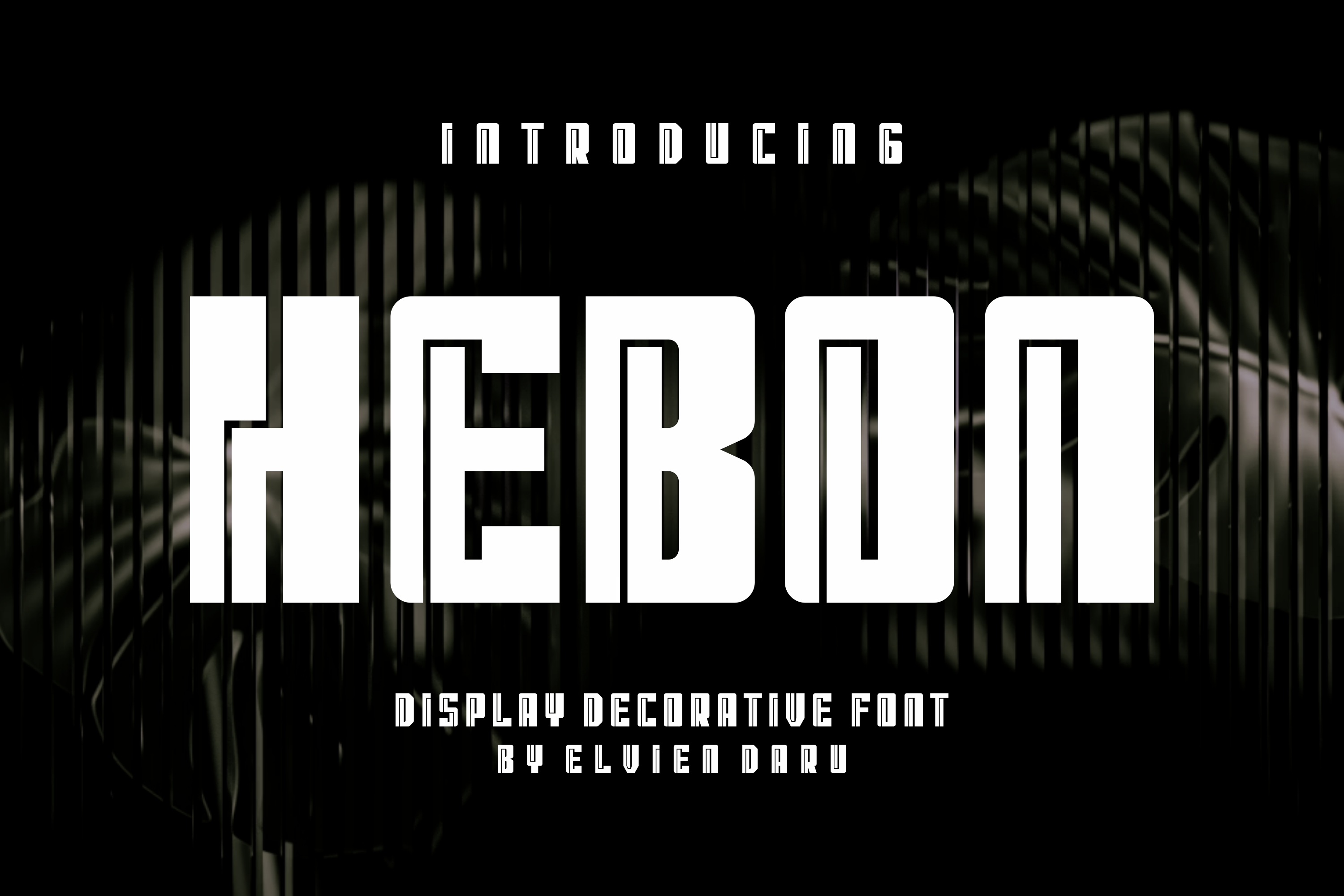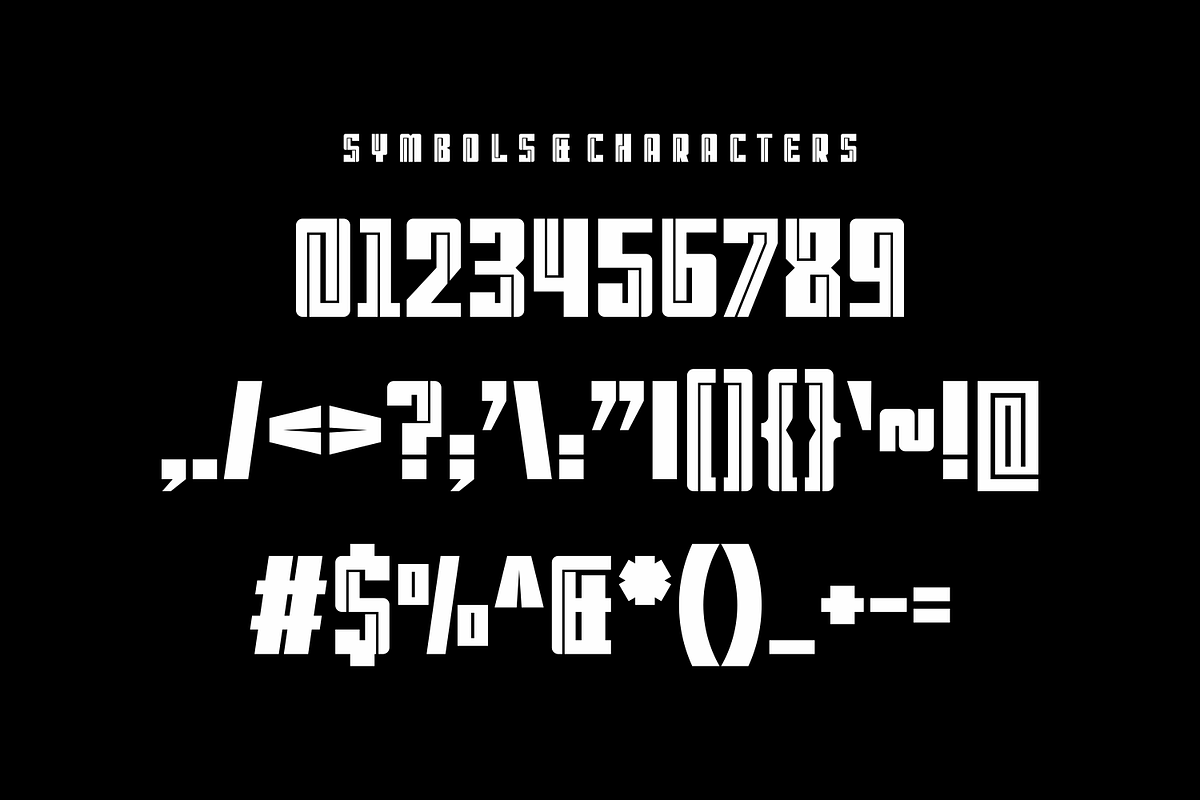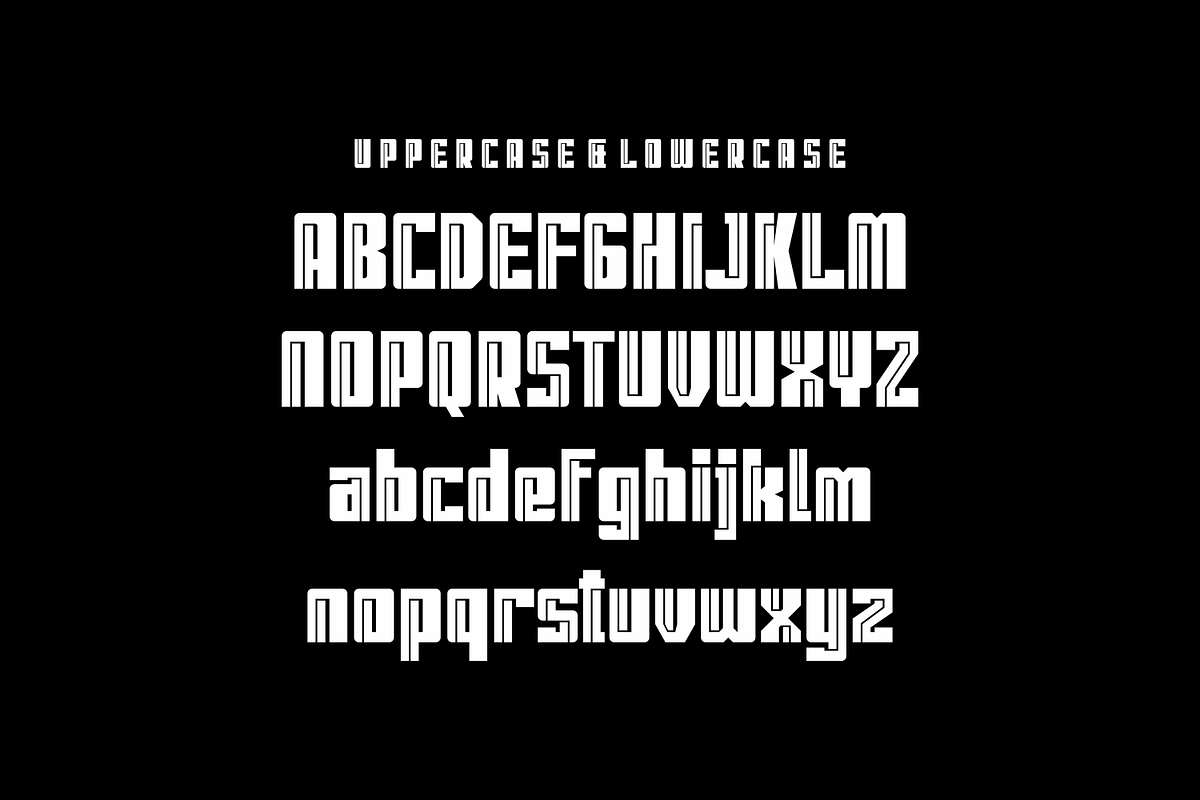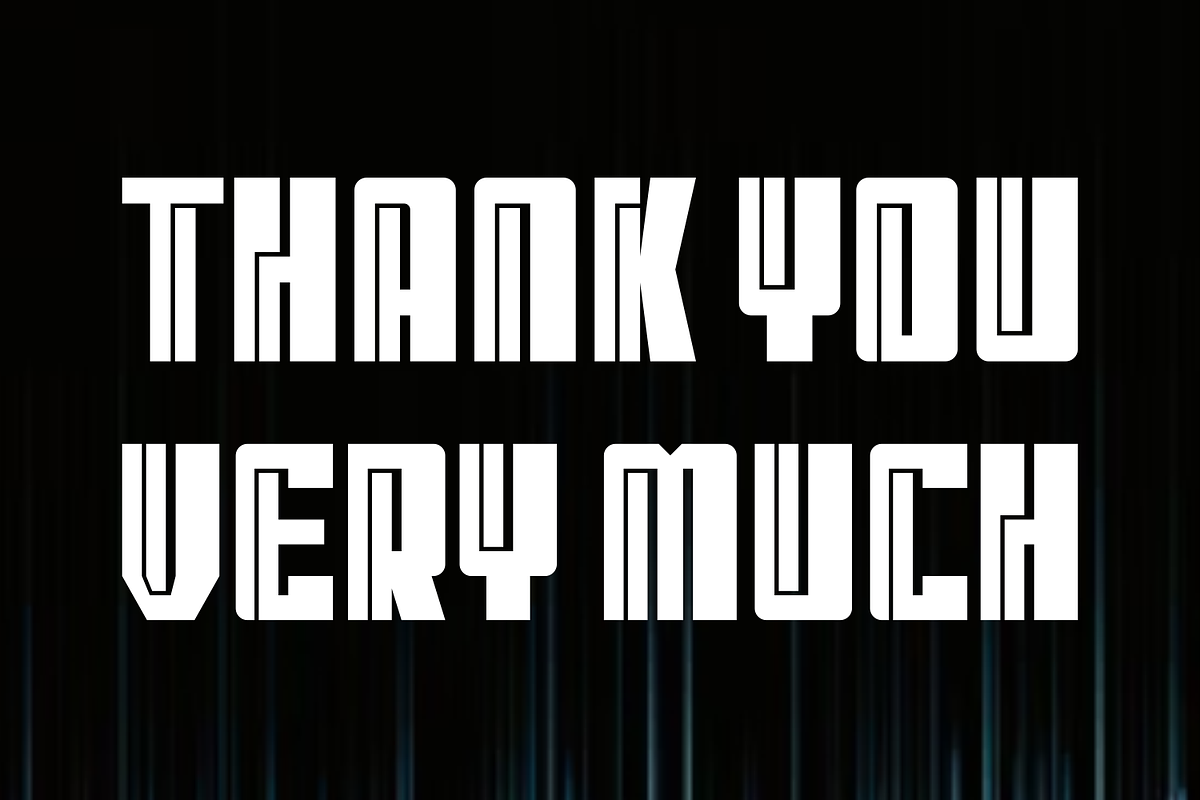
Hebon - Decorative Display Font
Hebon - Decorative Display Font Perfectly suited on print/screen. it’s perfect for Branding, name card, poster, logo, magazine, cover, banner, t-shirt and headers, or even large-scale artwork.